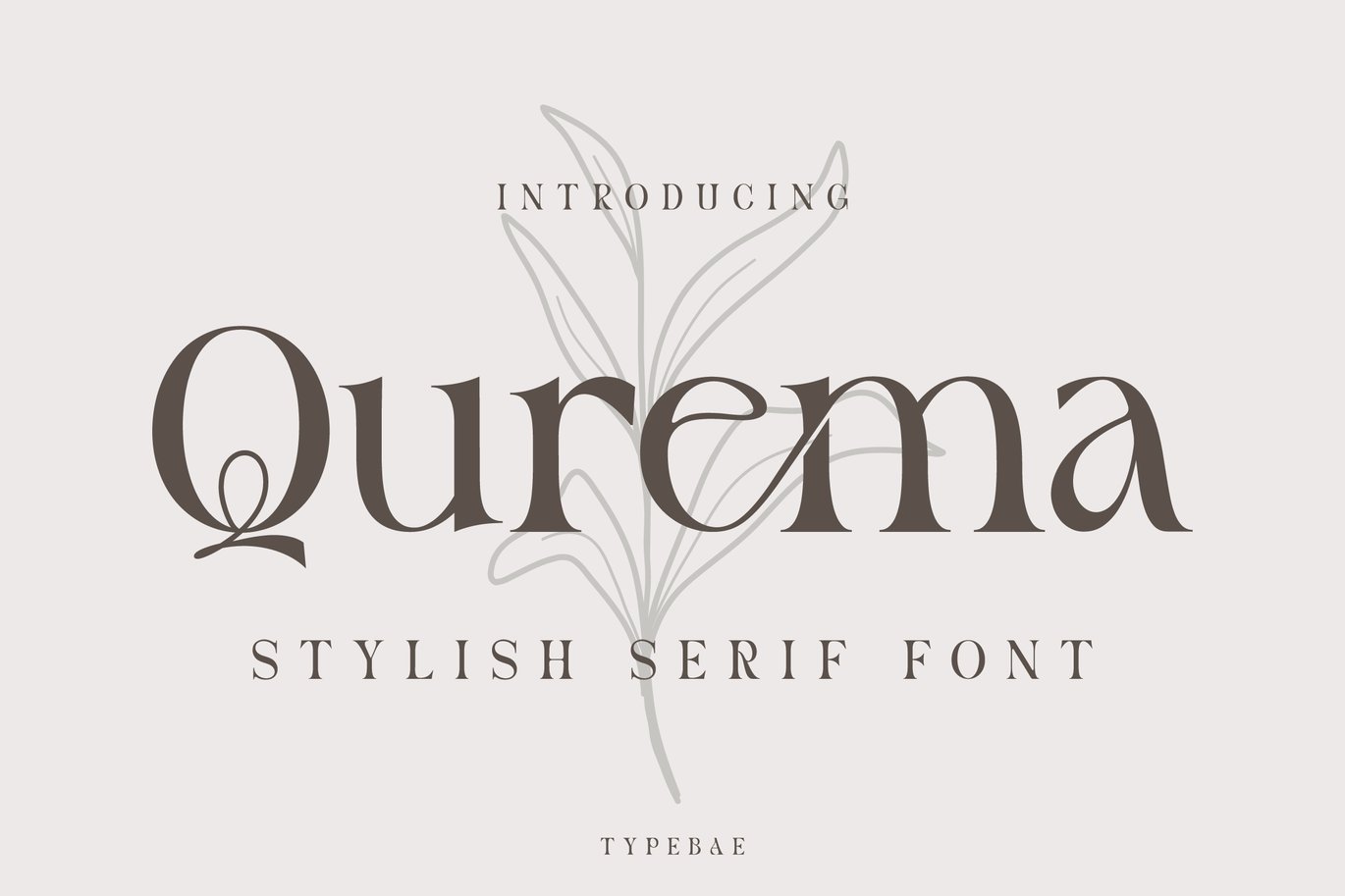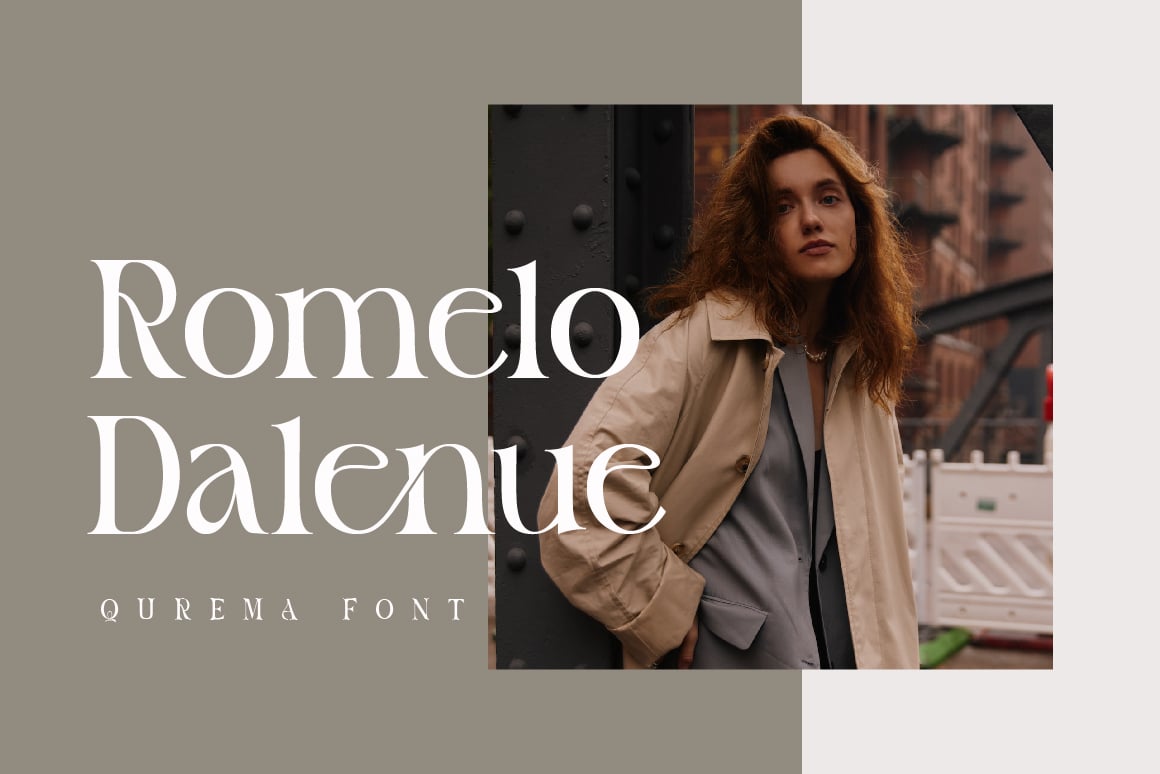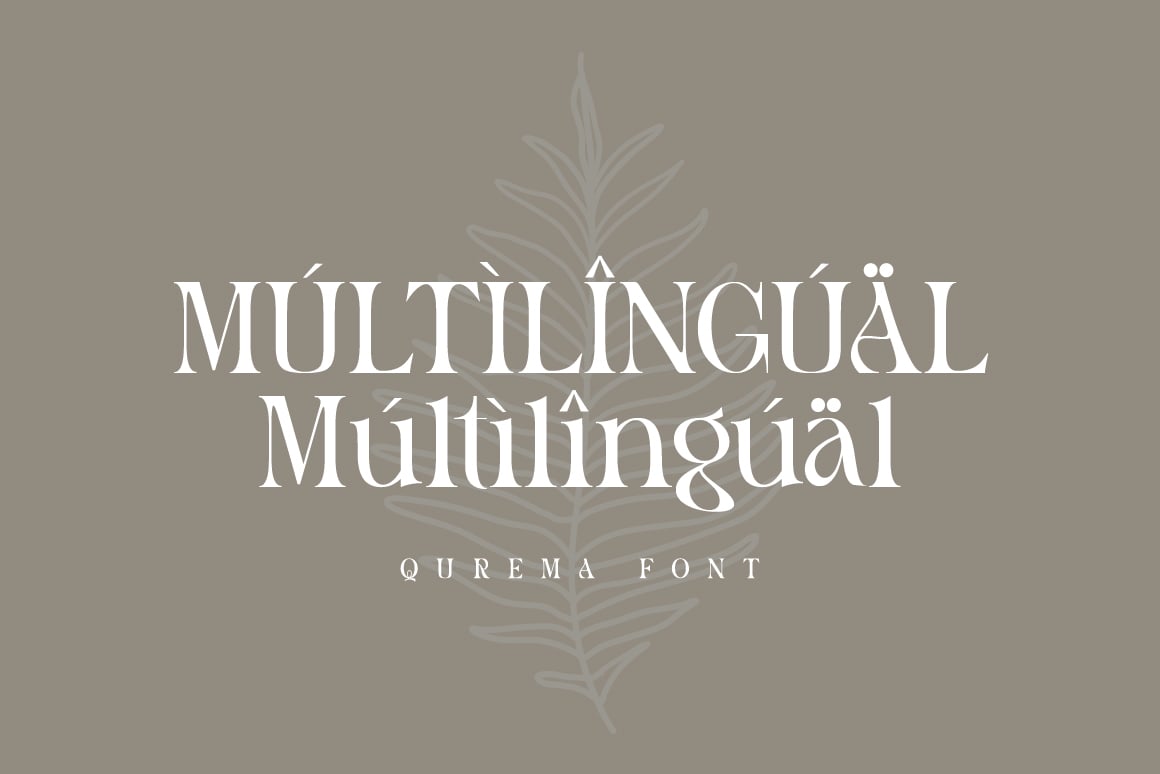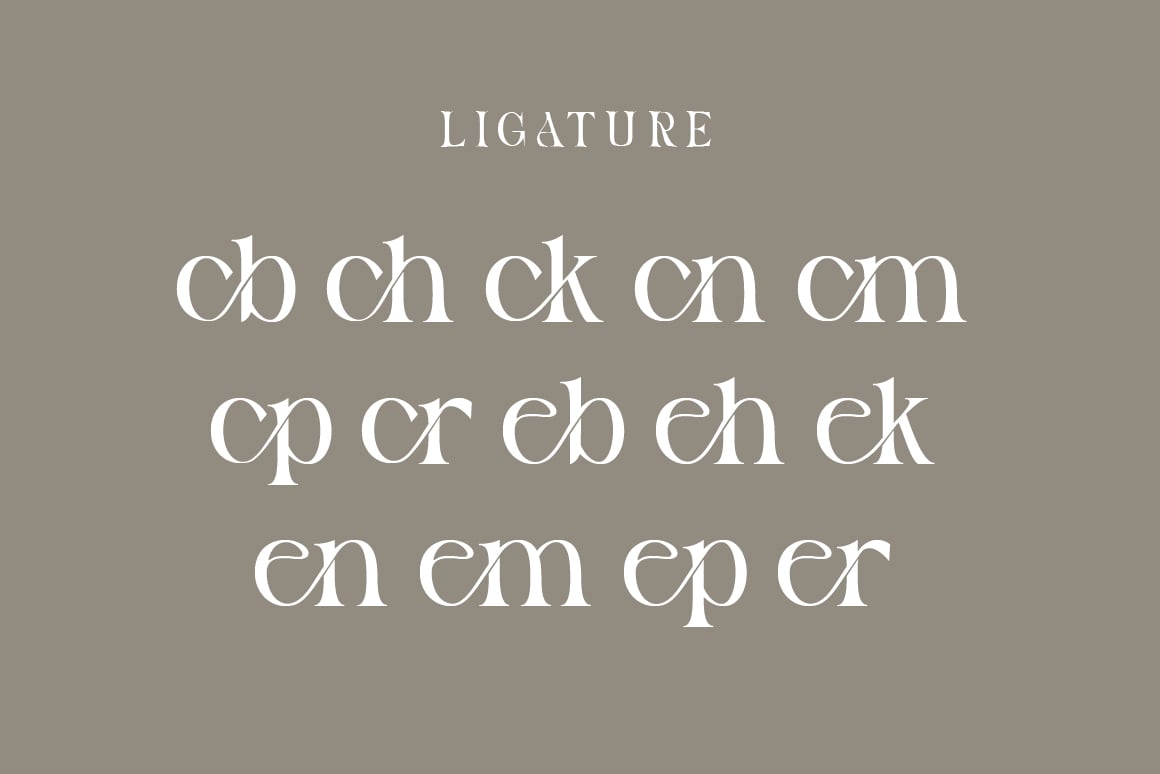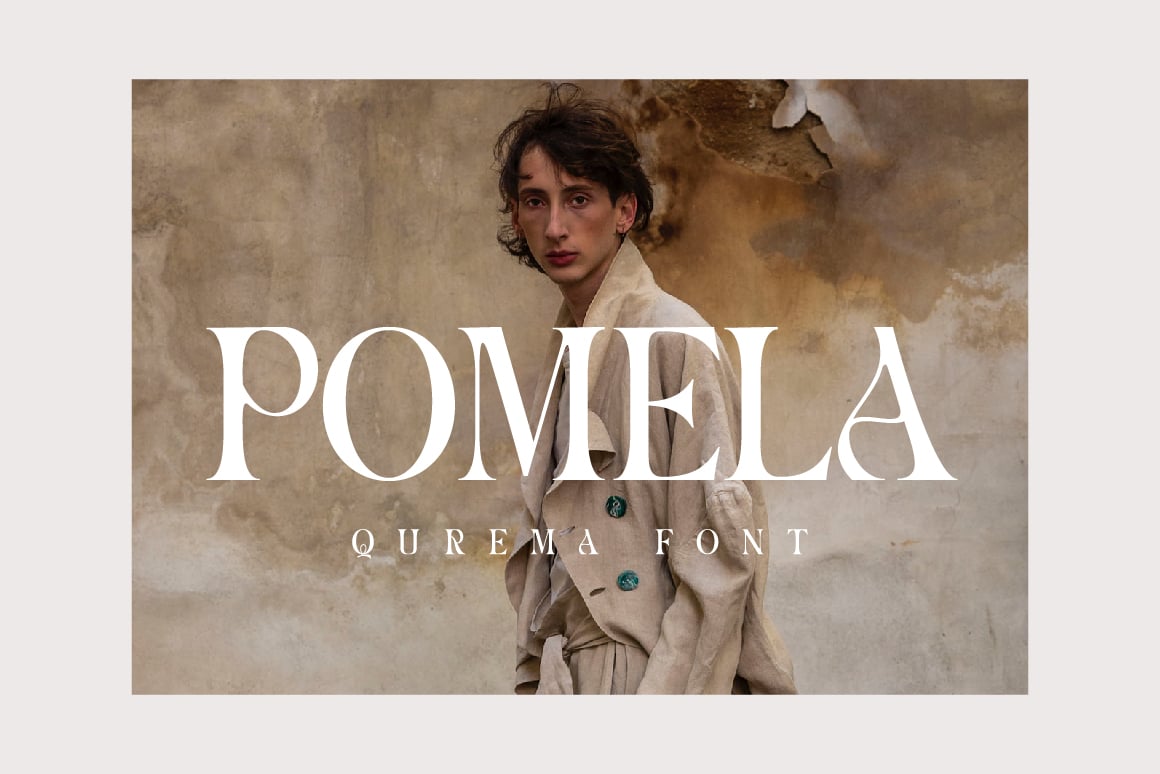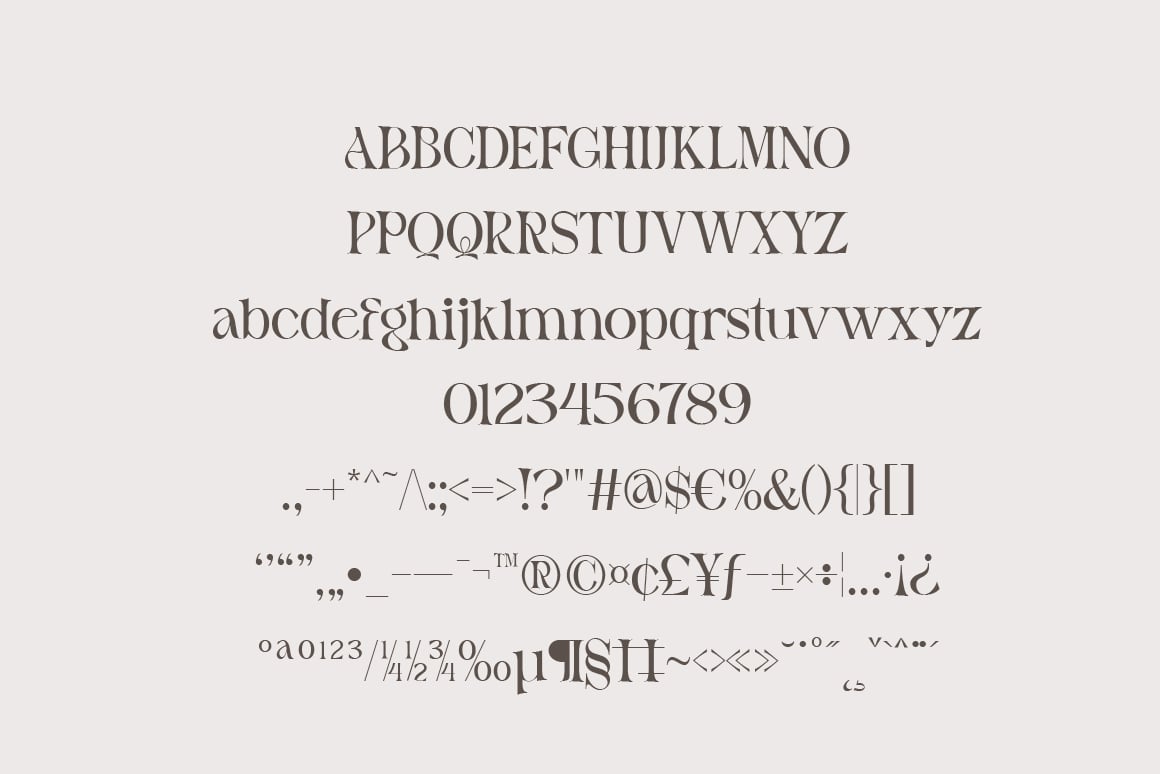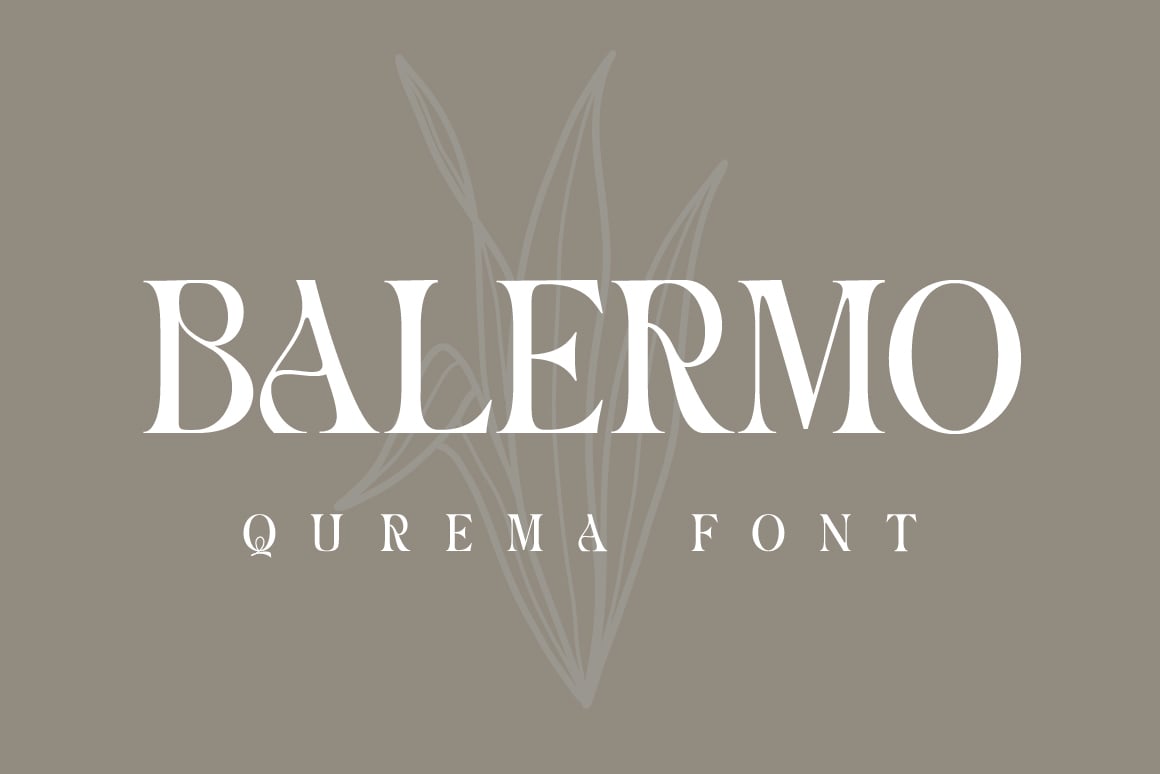
Qurema – Stylish Serif Font
Qurema is an elegantly modern serif font that embodies sophistication and contemporary style. With its seamless ligatures, this font seamlessly fuses classic charm with a modern twist, making it a perfect choice to infuse your projects with a touch of timeless yet current allure.
- Standard alphabet and punctuation
- Ligature feature
- Multilingual Support: Afrikaans, Basque, Breton, Catalan, Danish, Dutch, English, Finnish, French, Gaelic (Irish, Scots), German, Icelandic, Indonesian, Irish, Italian, Norwegian, Portuguese, Saami (Southern), Spanish, Swahili, Swedish.